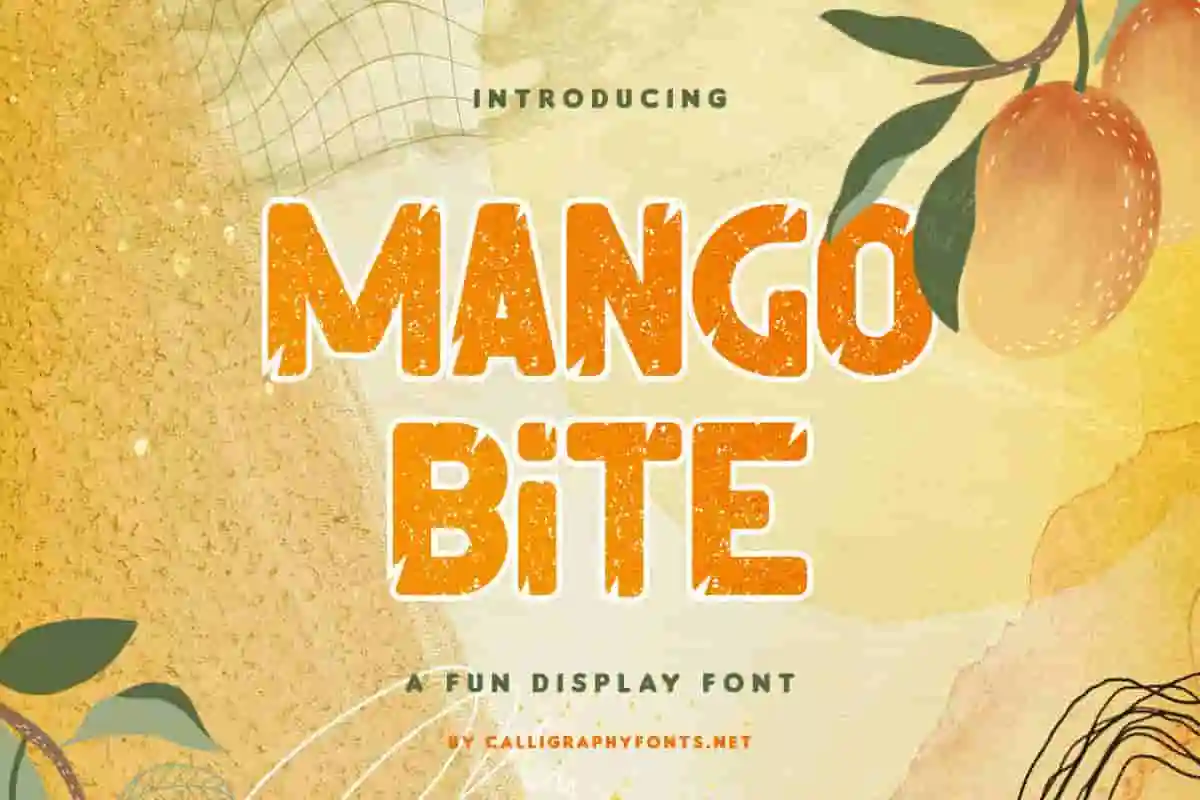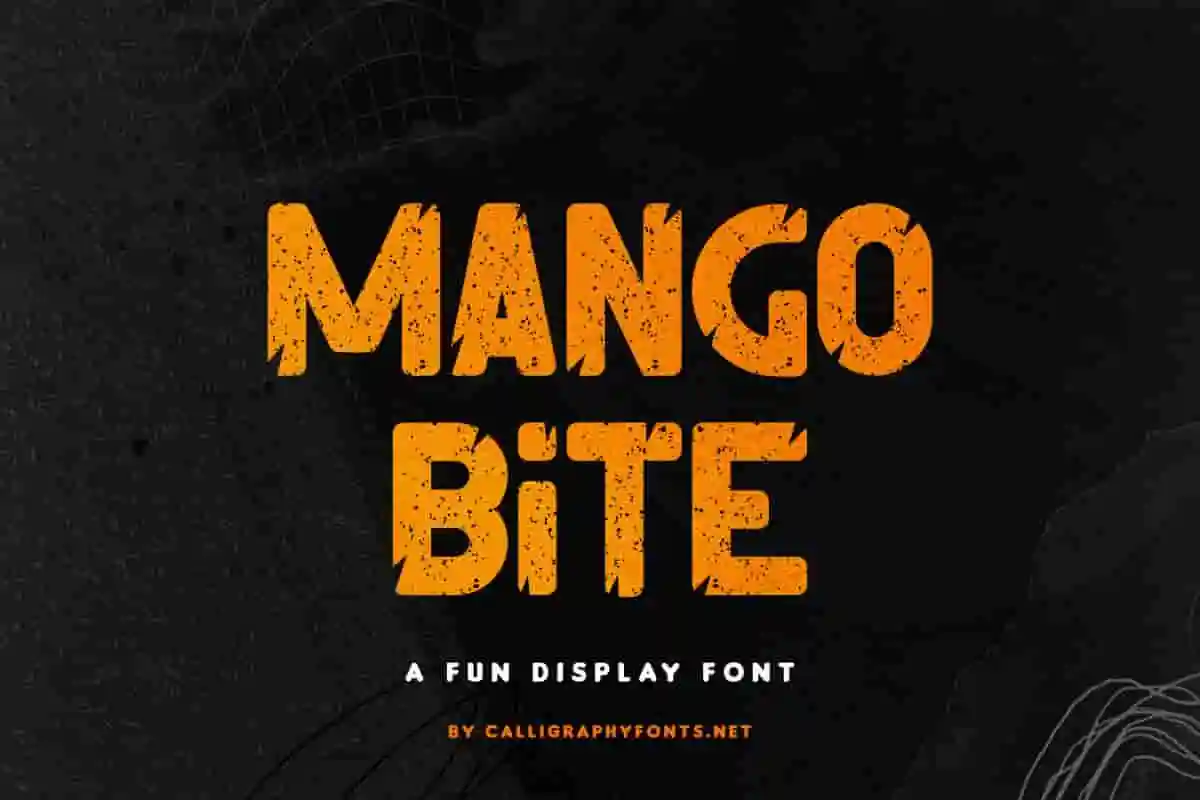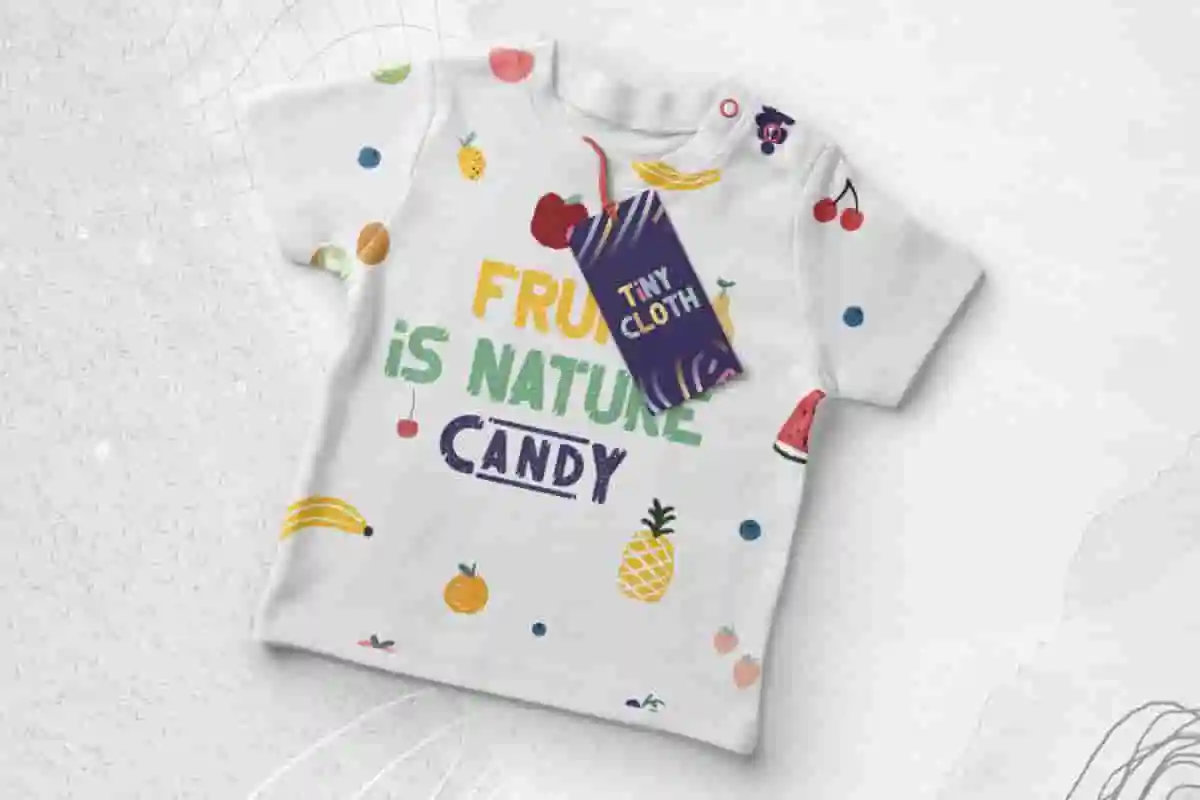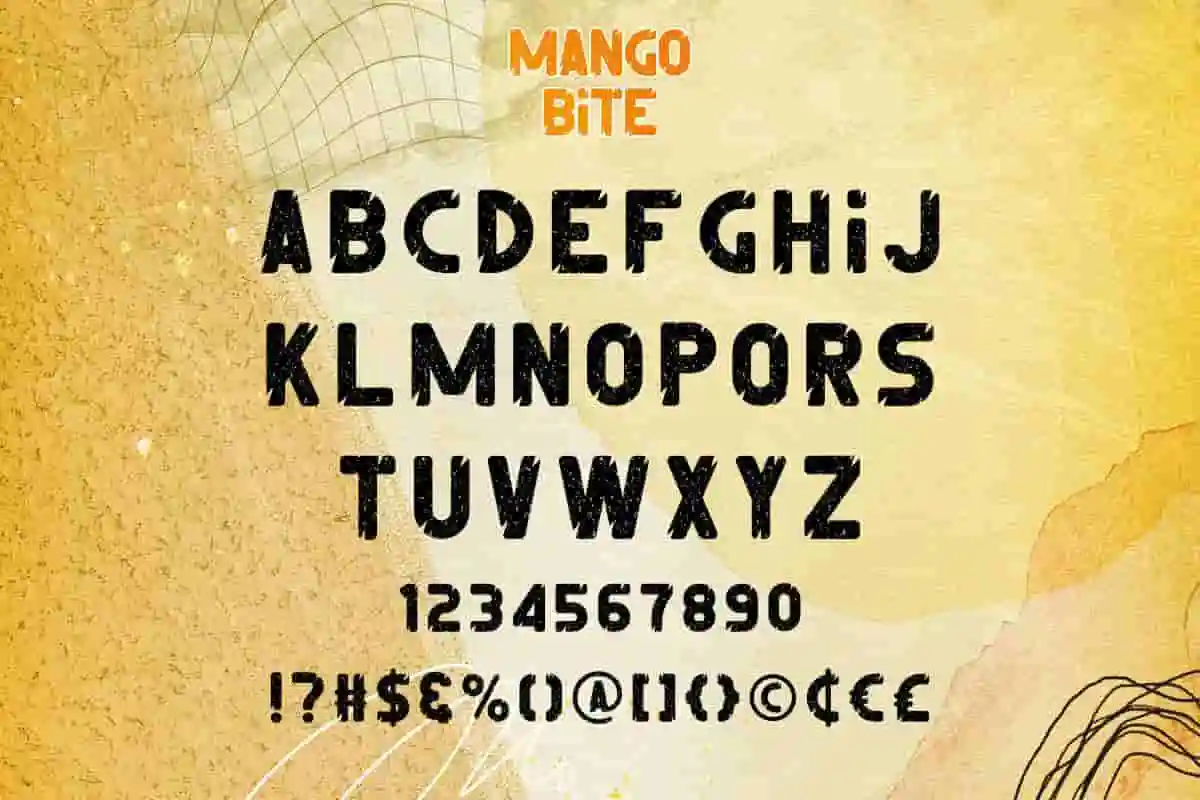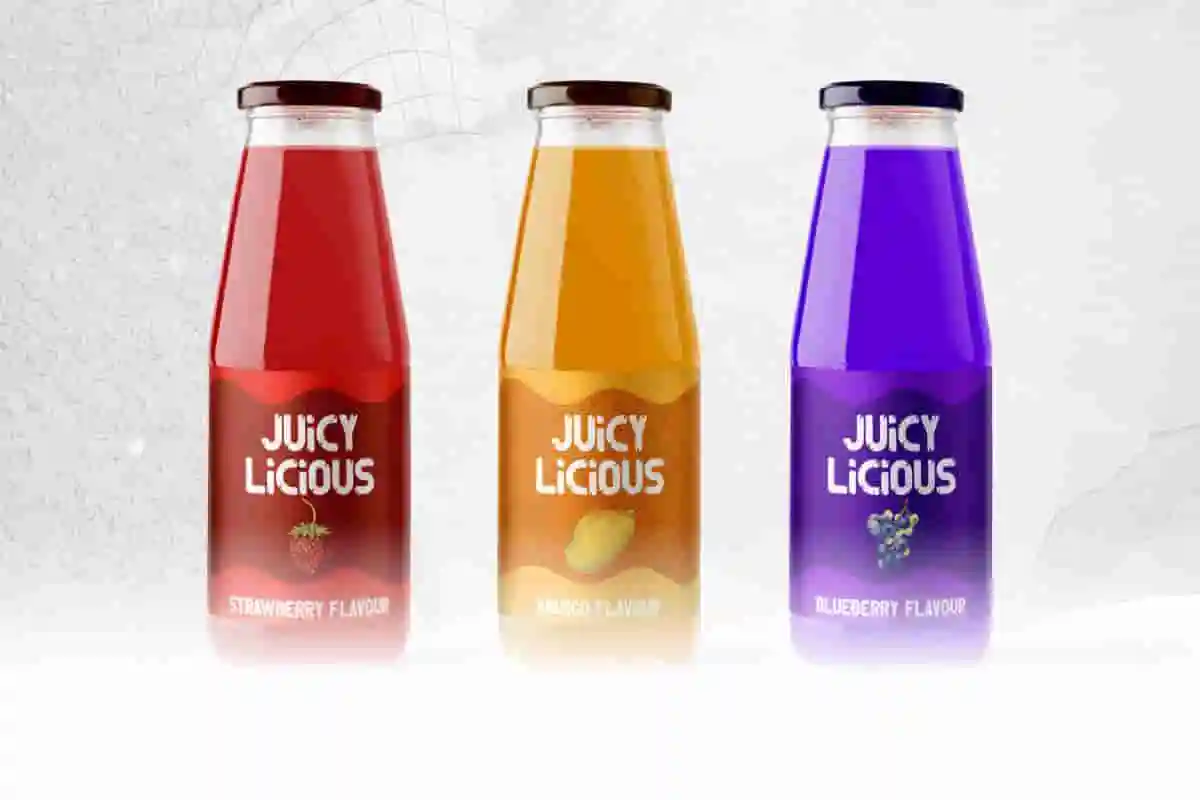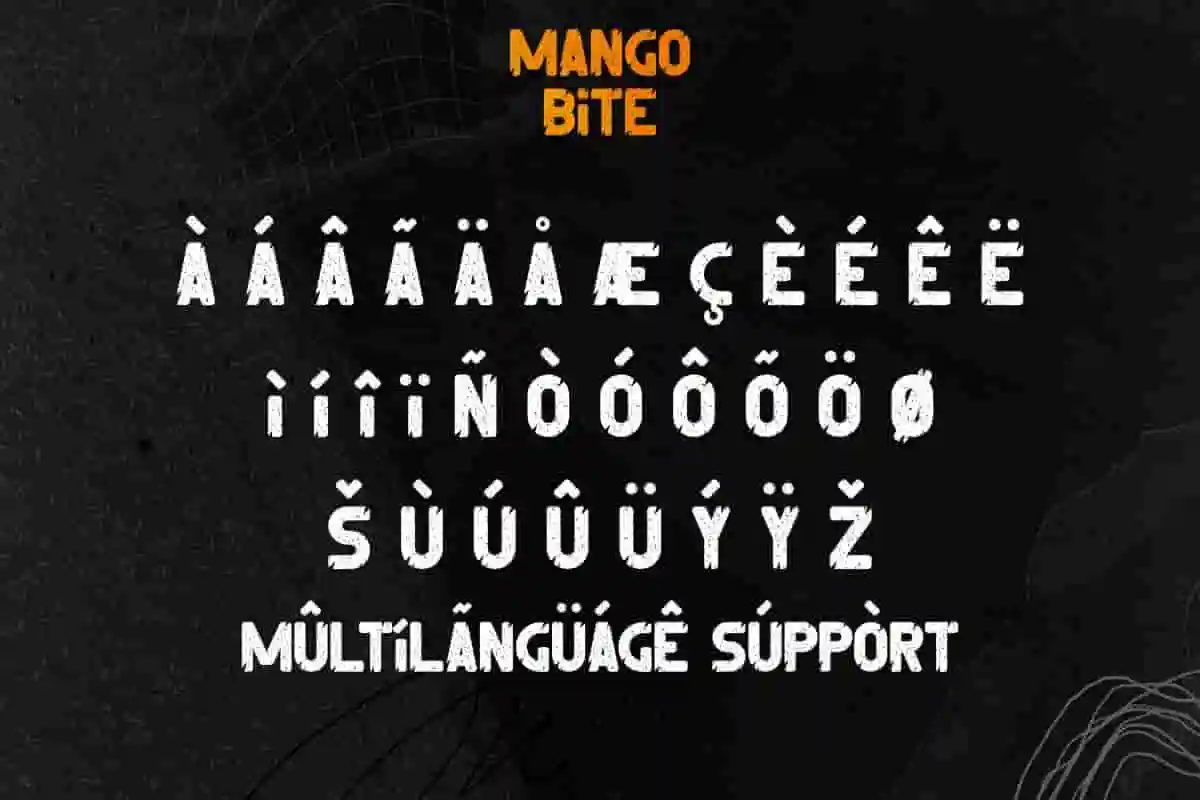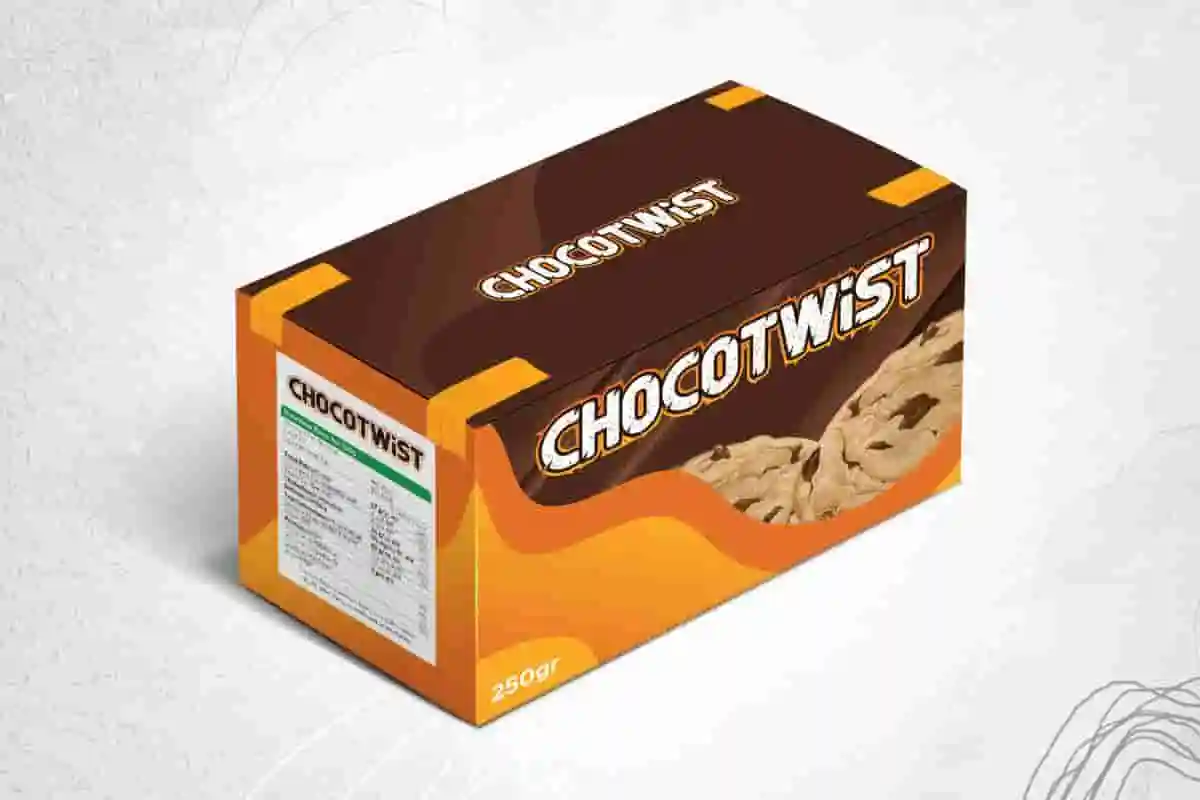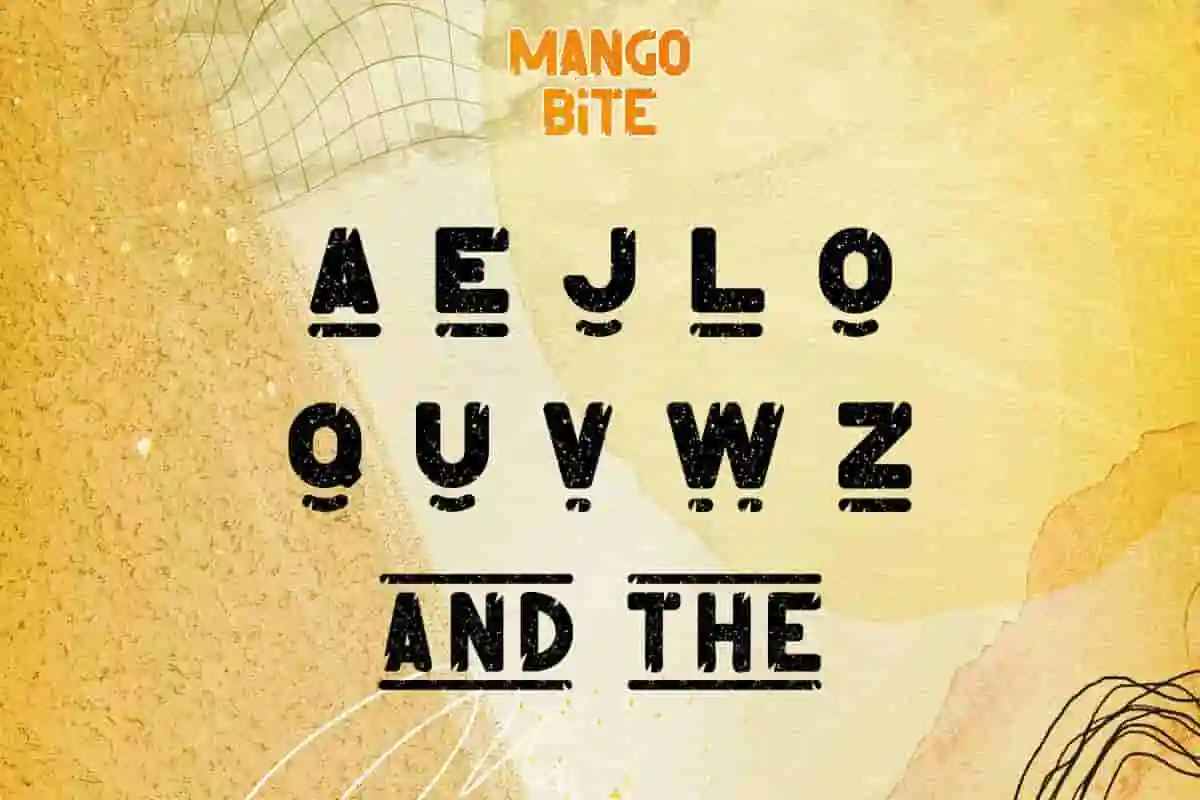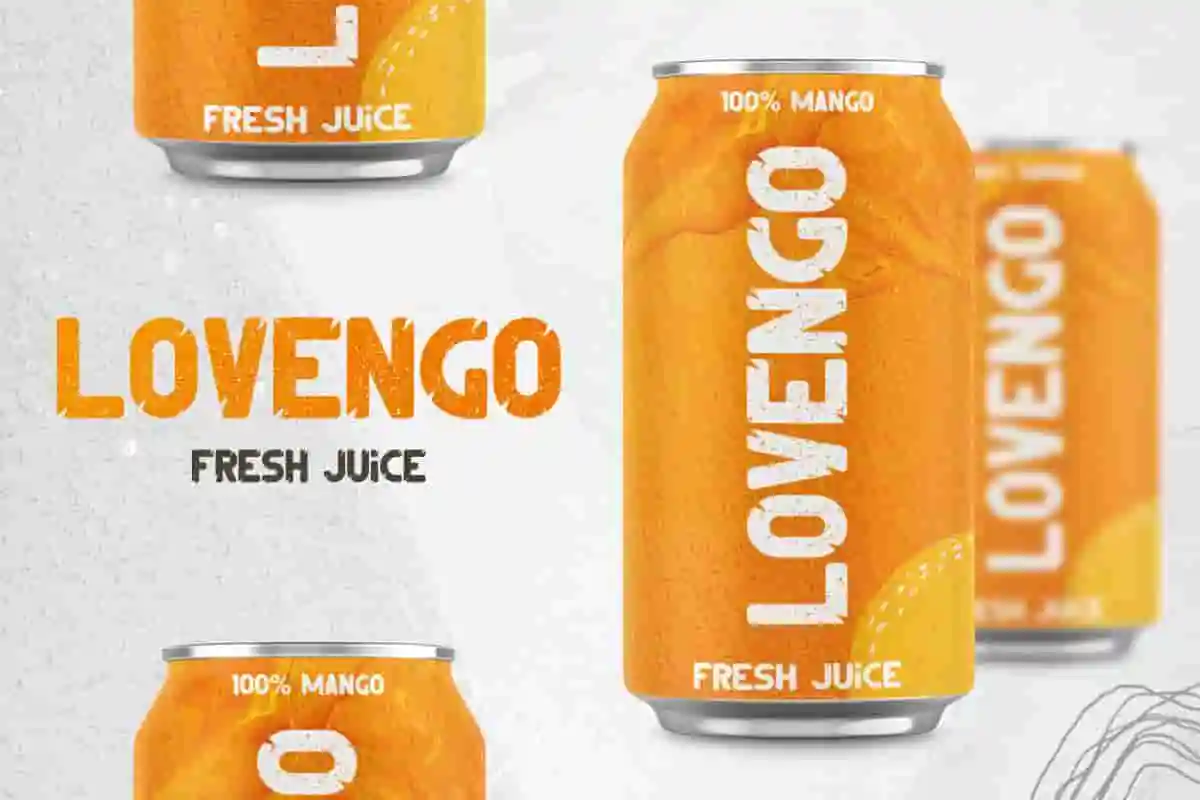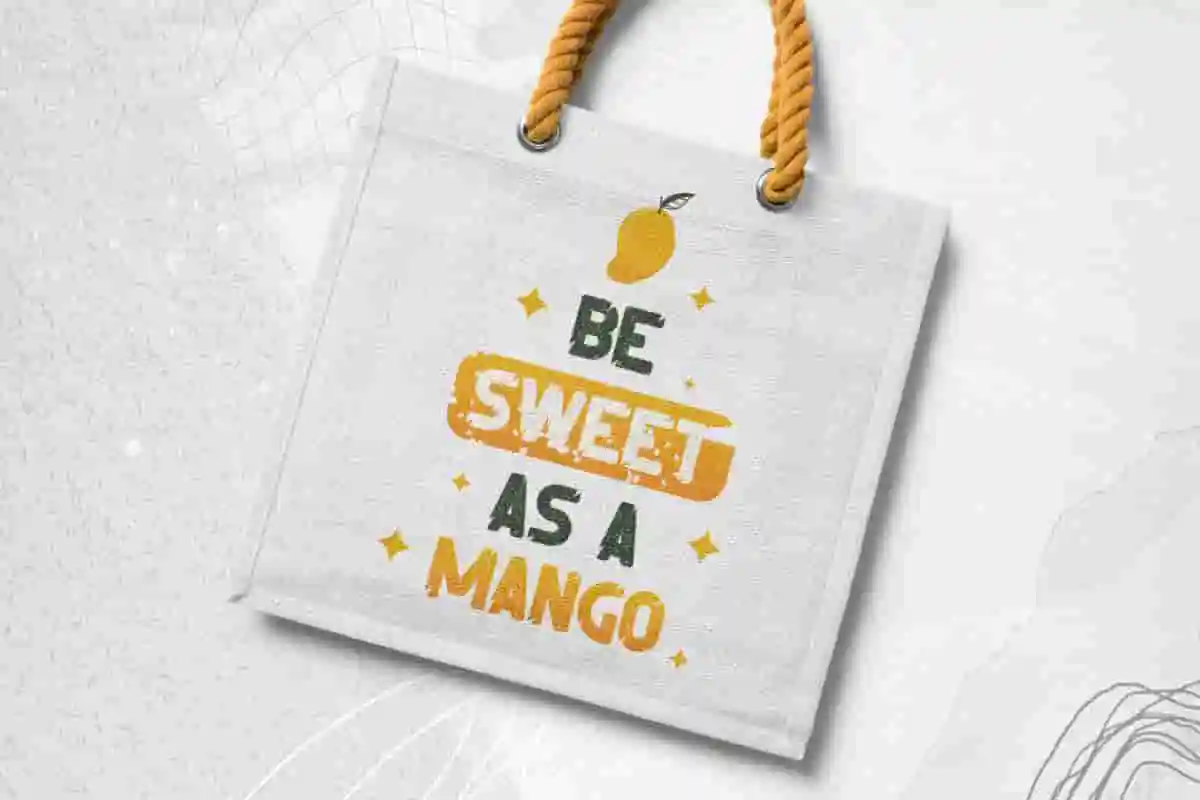
Mango Bite Display Font
Mango Bite Font is a fun display font. This is a sans serif font with cracked and bitten effect on letters. Great for clothing, lettering, logos, products packaging, signage, title etc. Mango Bite is a fresh and unique font with two style, Regular and Italic. The font will be awesome for many industries including : fashion, food and drink, games, kids and many more!
Add a burst of energy to your designs with Mango Bite Display Font, a fresh and playful typeface inspired by the juicy sweetness of summer mangoes. With its bold shapes, smooth curves, and lively personality, this font is perfect for grabbing attention and making your message stand out.
Whether you’re creating product packaging, event posters, social media graphics, or branding for a fun and youthful business, Mango Bite Display Font delivers a vibrant look that’s impossible to ignore. Its unique letterforms combine readability with charm, making it a versatile choice for both print and digital projects.